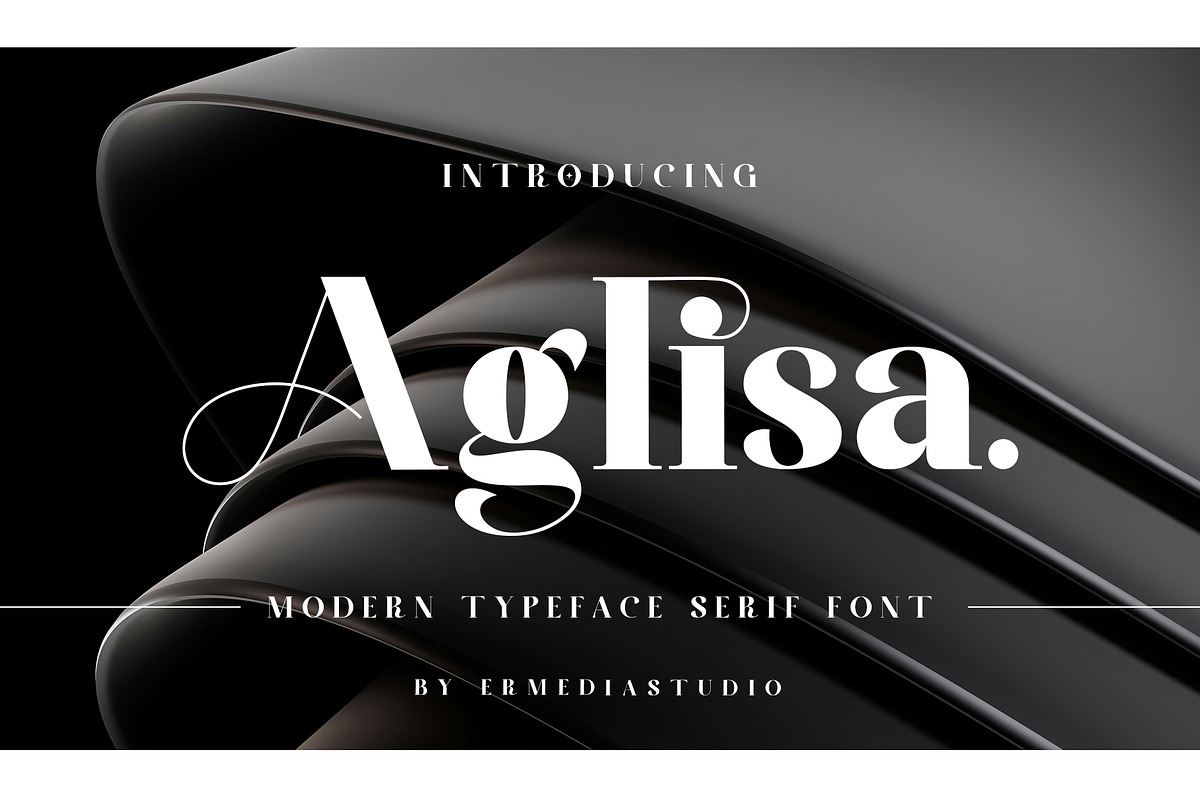
Aglisa – Editorial Serif Font
Aglisa – Editorial Serif Font is a professionally designed typeface that delivers clarity, structure, and consistent performance across various design applications. Aglisa Serif Font: is a balanced, smooth, elegant and stylish serif font. He has a beautiful character. Very suitable to be combined with invitation card designs, company logos, film titles, film names, business cards, book titles, brand names and various other designs. Aglisa Serif is a smooth serif font that exudes sophistication and elegance.This charming and stylish font makes this font the perfect partner for any project.